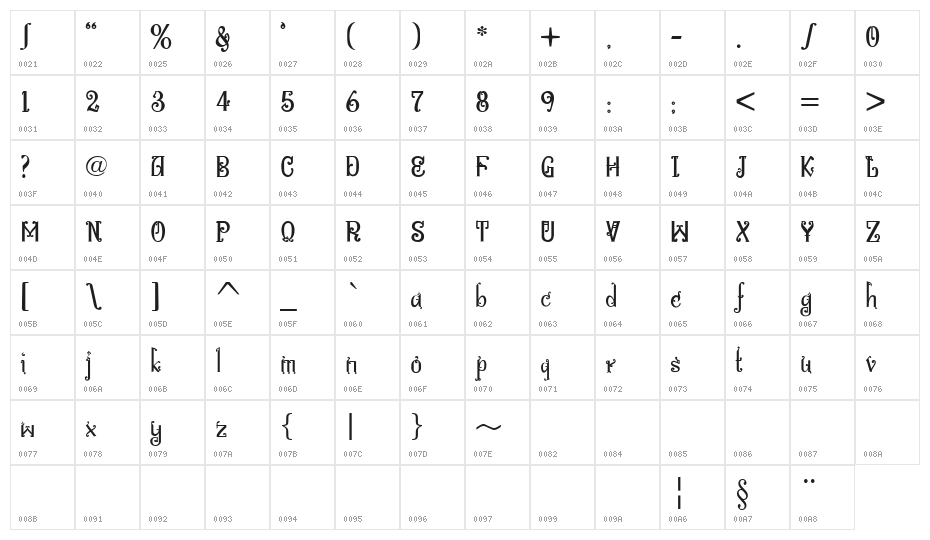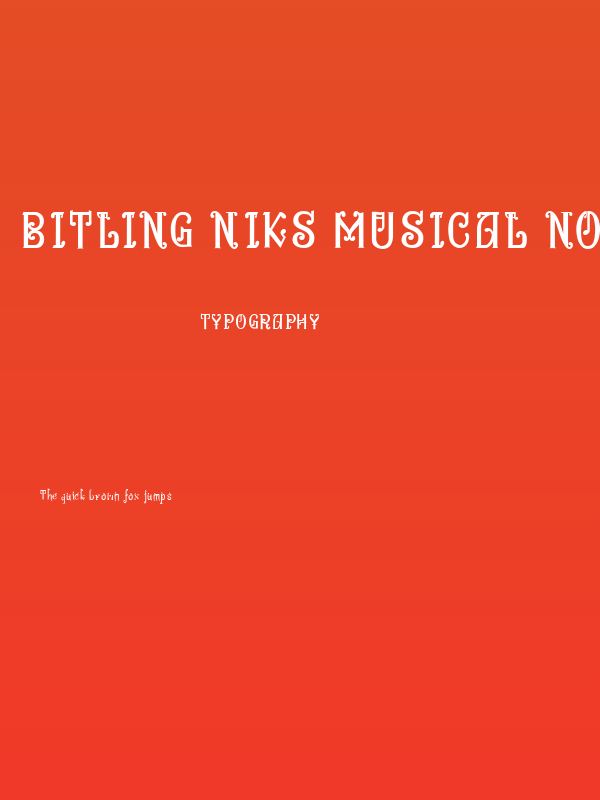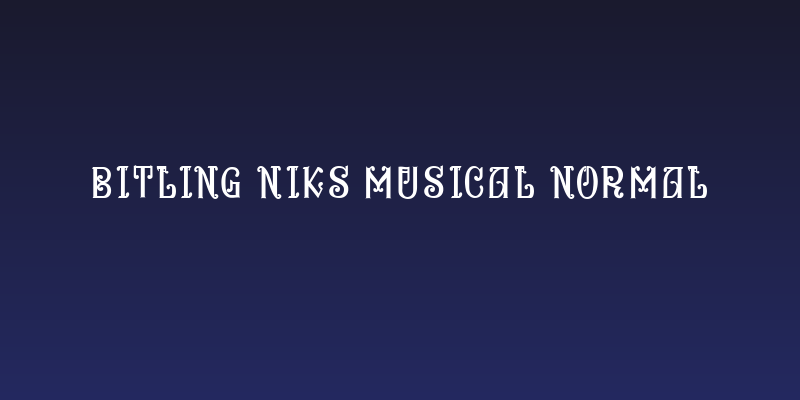
Bitling niks musical Normal Font
Bitling niks musical Normal Description
This font features a unique and decorative style, characterized by its intricate and ornate design elements. Each letter is adorned with small embellishments, giving it a whimsical and artistic appearance. The uppercase letters are bold and striking, while the lowercase letters maintain a consistent style with slightly more subtle decorations. The numerals are equally decorative, ensuring a cohesive look across all characters. The special characters are designed to match the overall aesthetic, making this font suitable for creative and expressive projects.
| Use Case | Headlines, Logos, Artistic projects |
| Proposed Projects | Ideal for artistic projects, invitations, posters, and any design requiring a creative and decorative touch. |